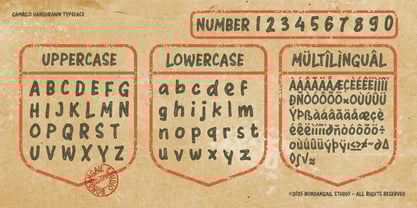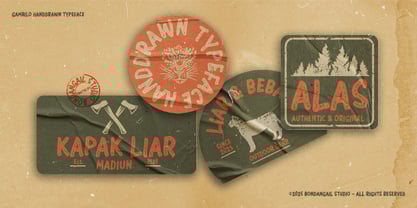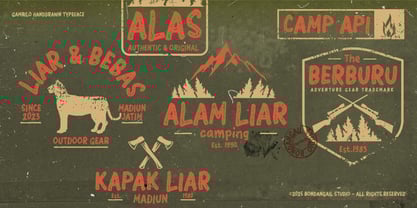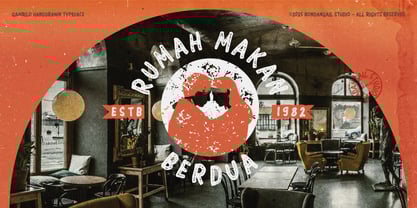
Gambilo
by BondanGail
The Gambilo Font Family was designed by Wahyu Eka Prasetya, Bondan Gail Saputro and published by BondanGail. Gambilo contains 1 styles.
Gambilo is a casual, sans-serif font with a hand-drawn, textured look. It’s bold and playful, giving a nostalgic vintage or retro vibe. Perfect for logo, labels, posters, packaging, T-shirts, and branding to add a fun, old-school feel.
Designers: Wahyu Eka Prasetya, Bondan Gail Saputro
Publisher: BondanGail
Foundry: BondanGail